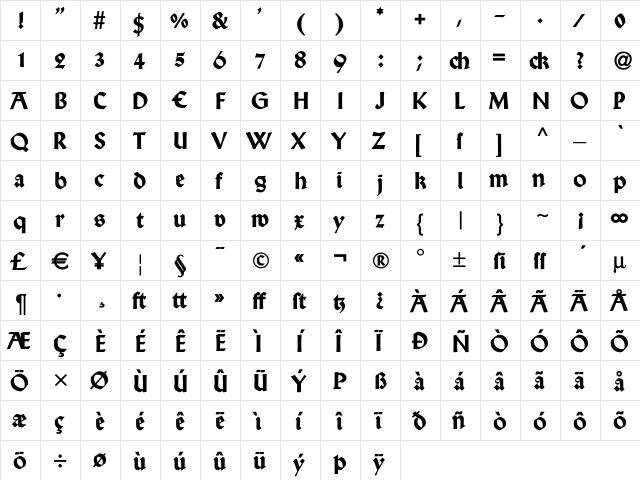
Wallau Rundgotisch OsF Heavy
Design Context for Wallau Rundgotisch OsF Typeface
Wallau Rundgotisch OsF takes a measured approach to typography — its balanced proportions and neutral character make it a reliable workhorse for both digital and print work.